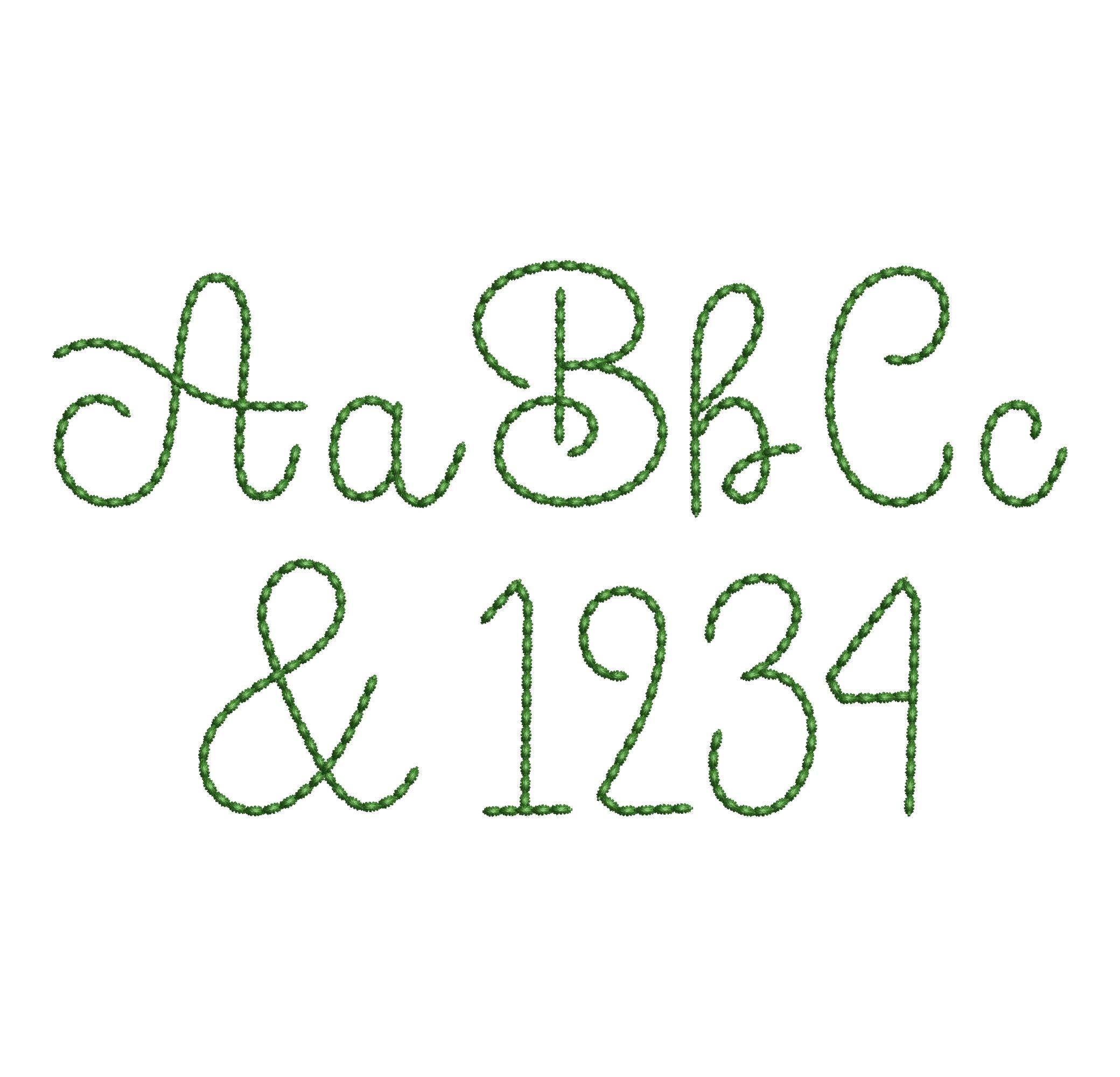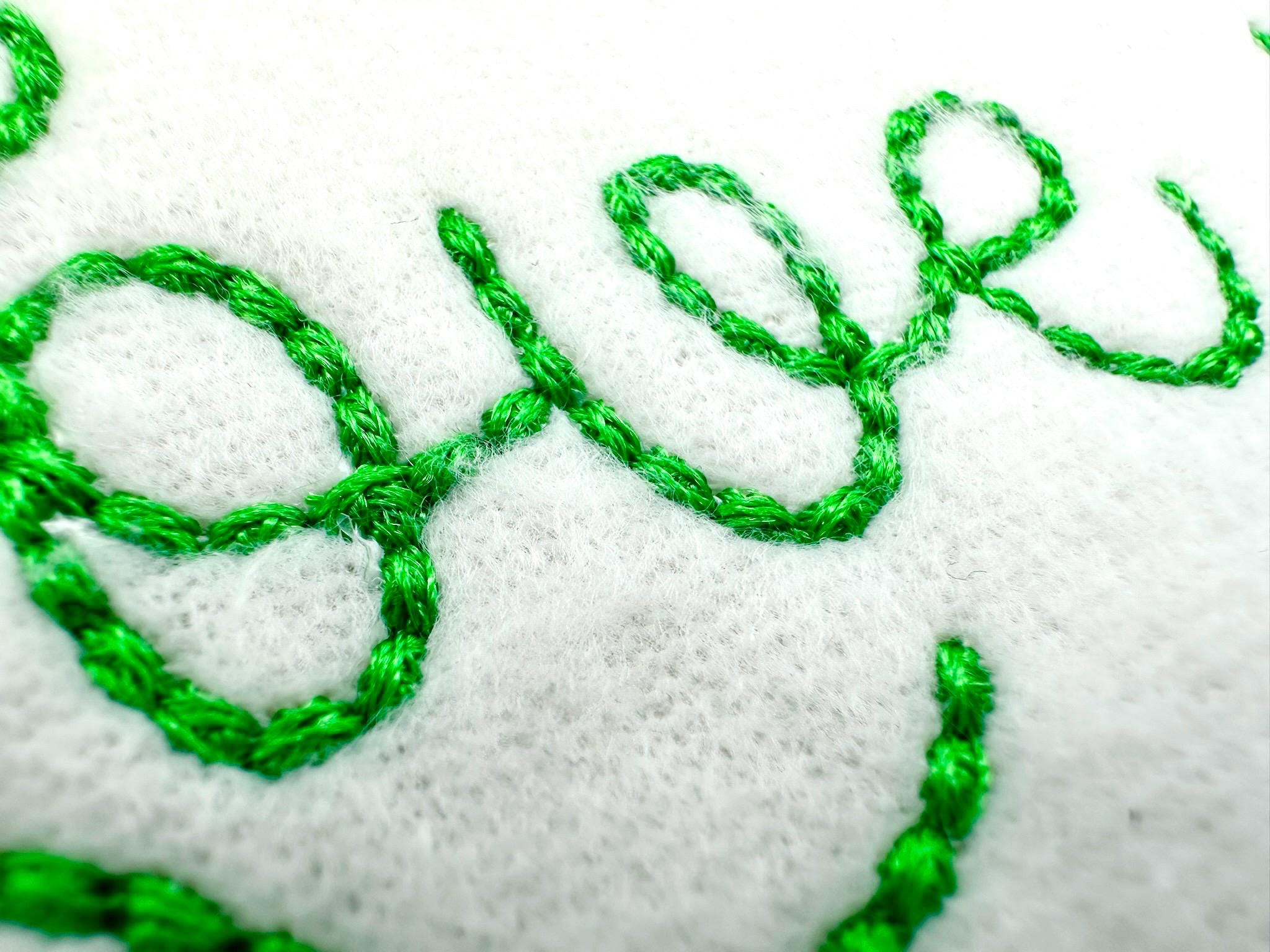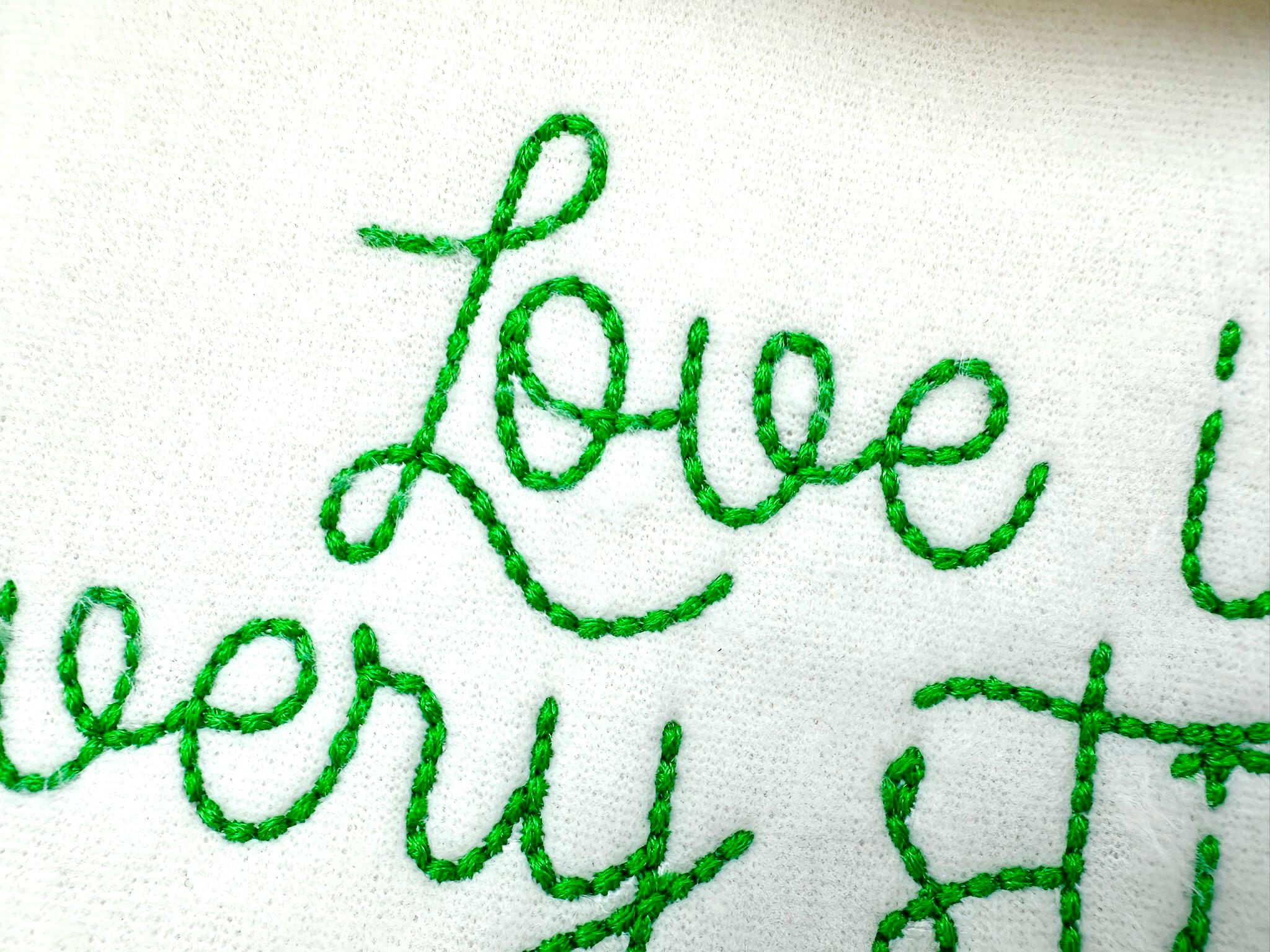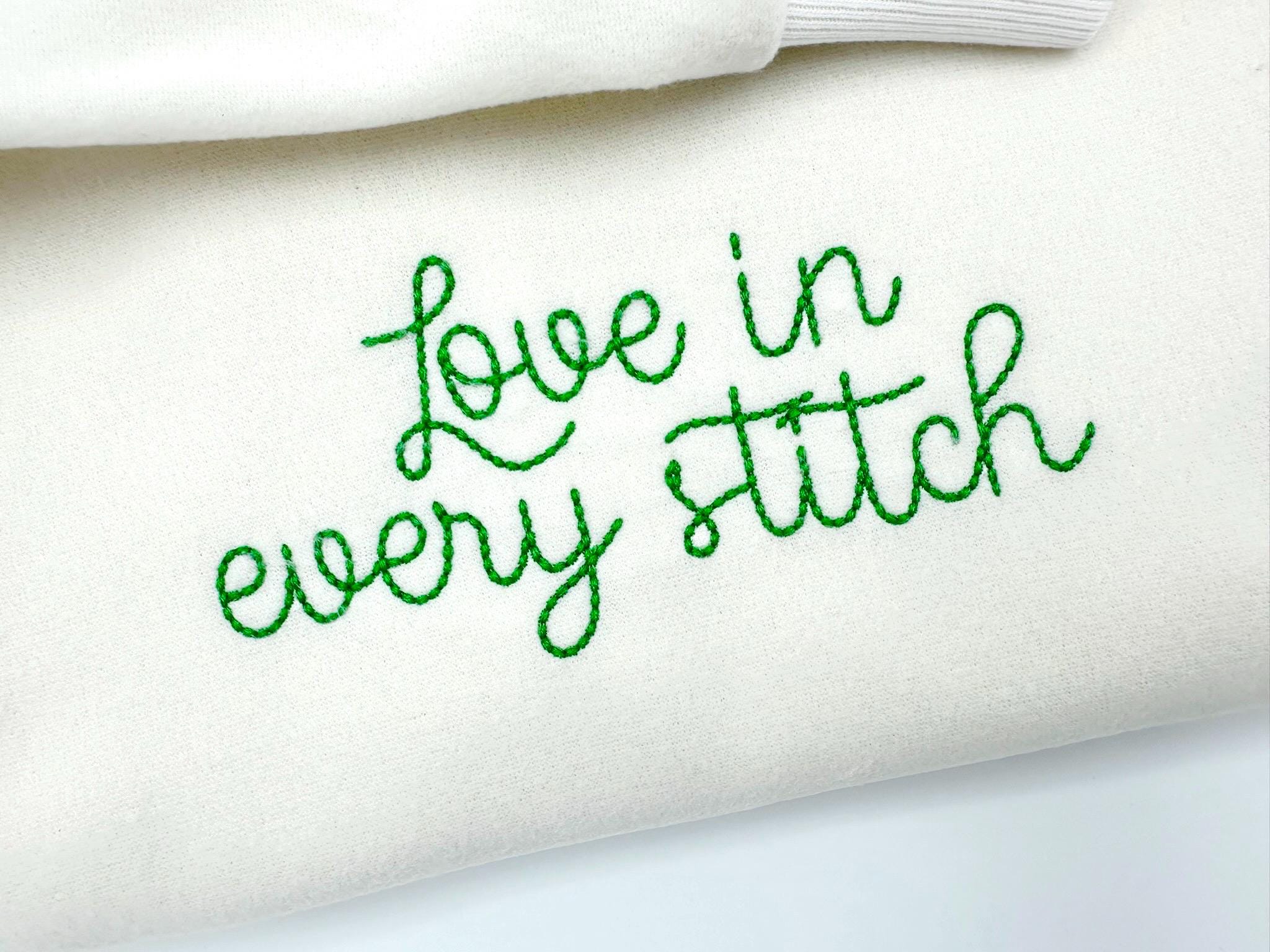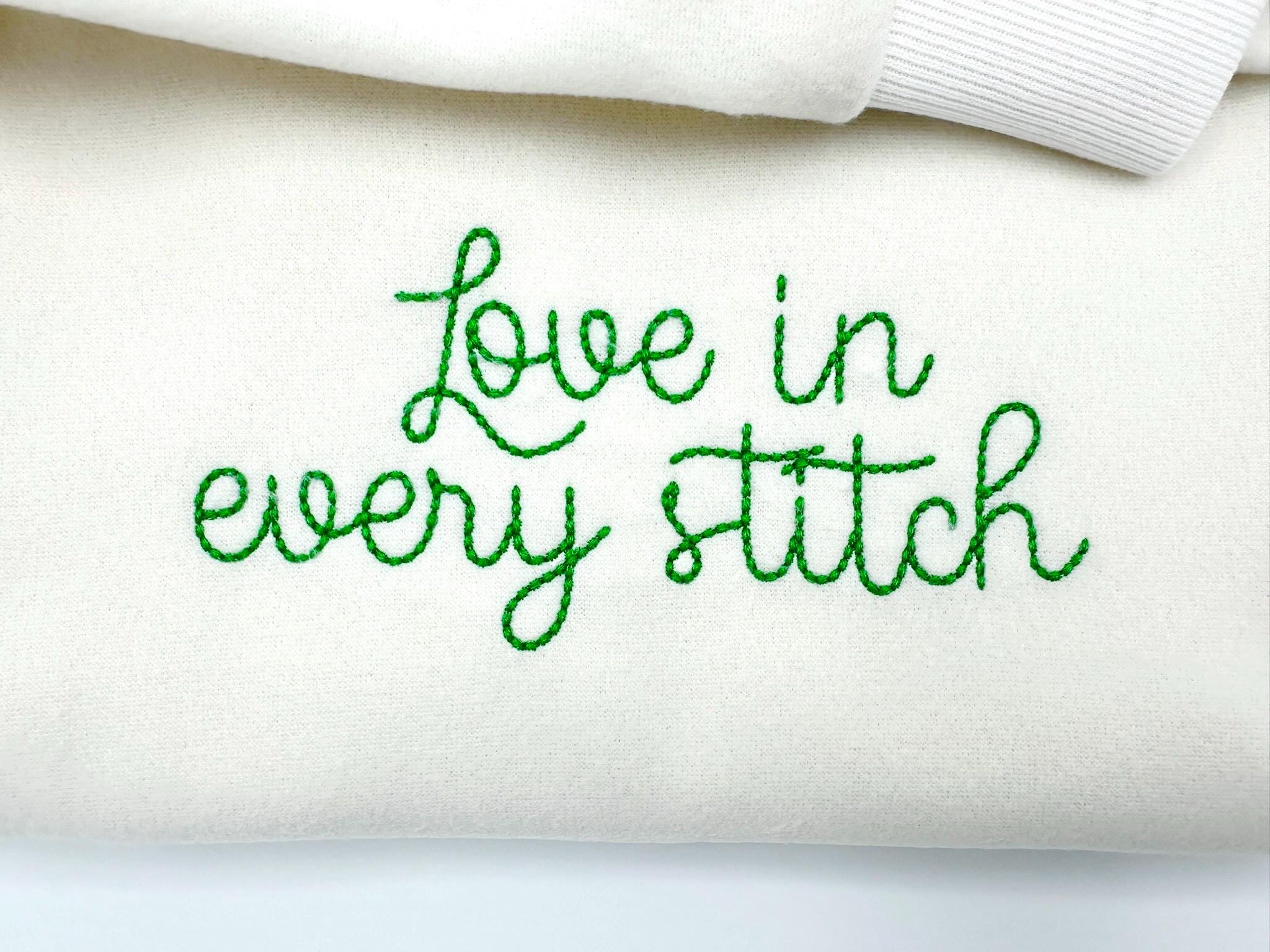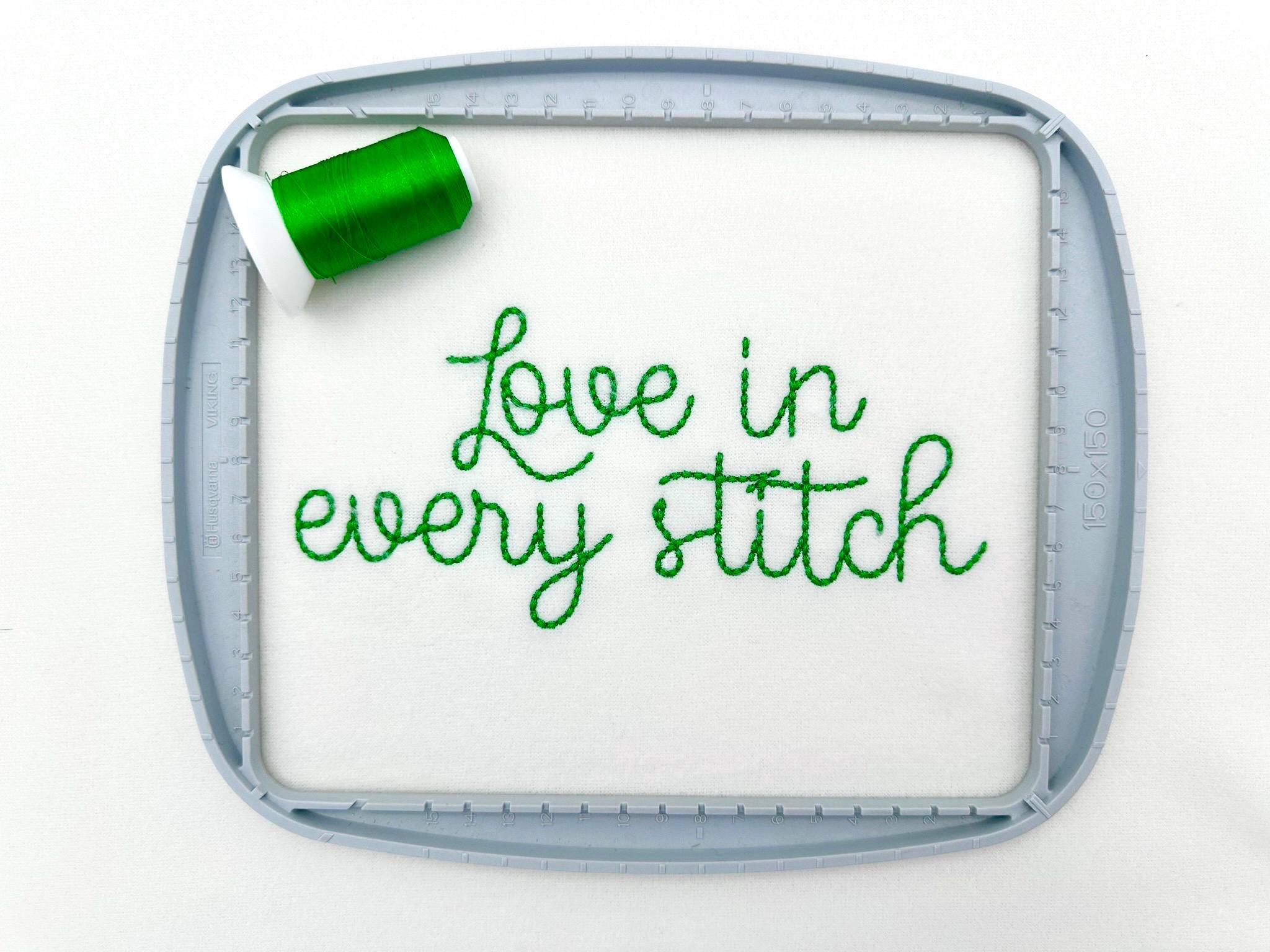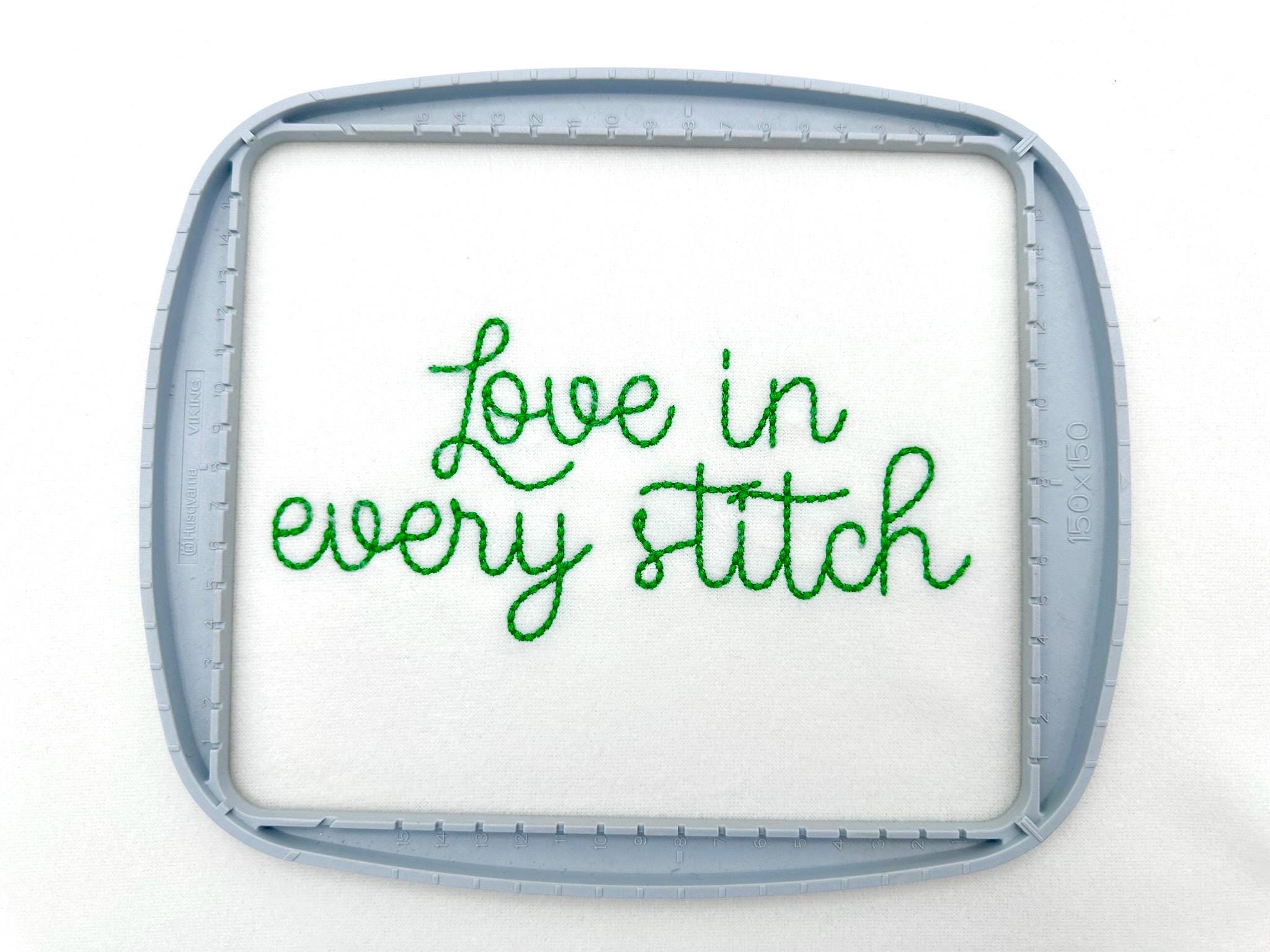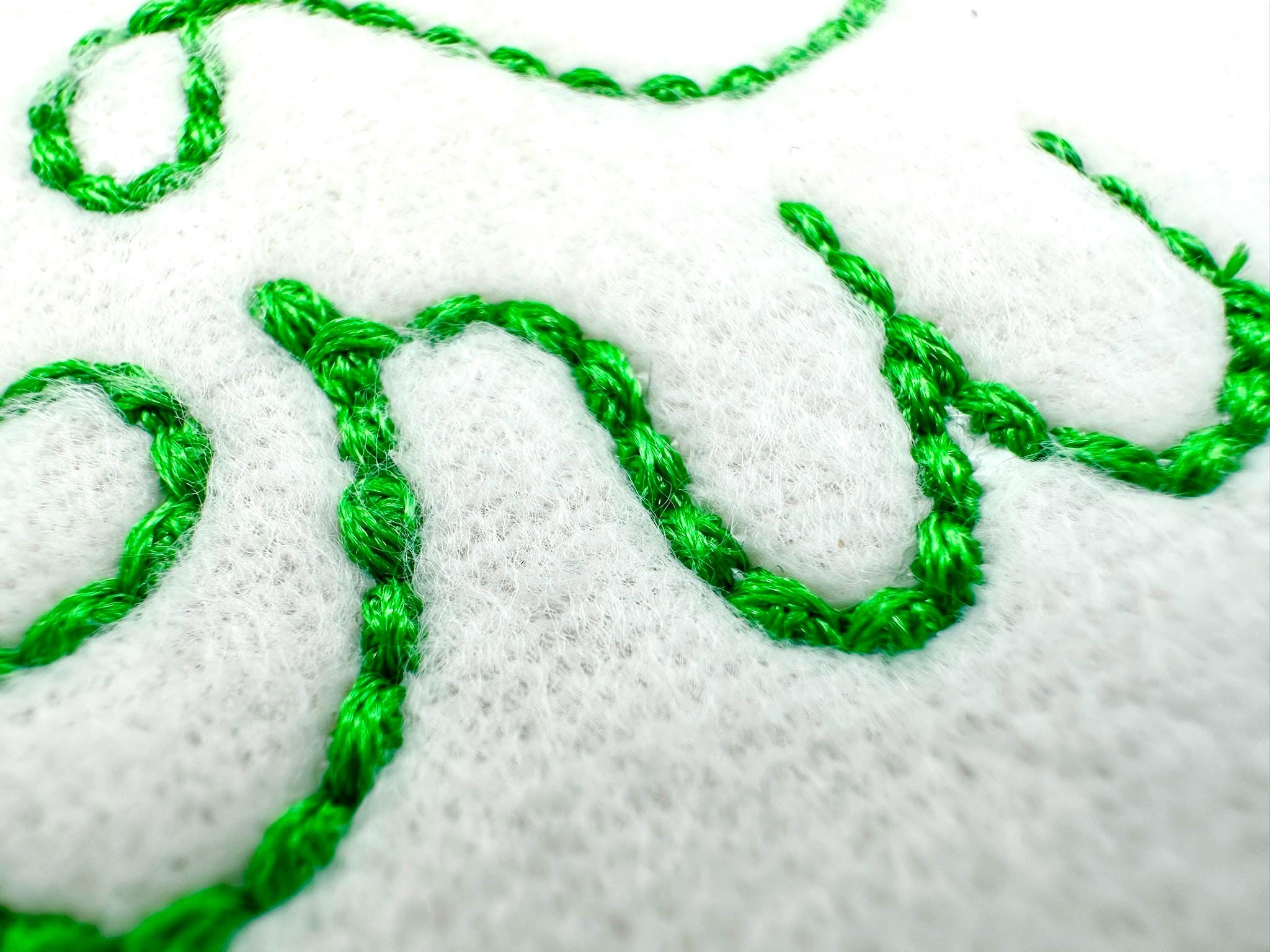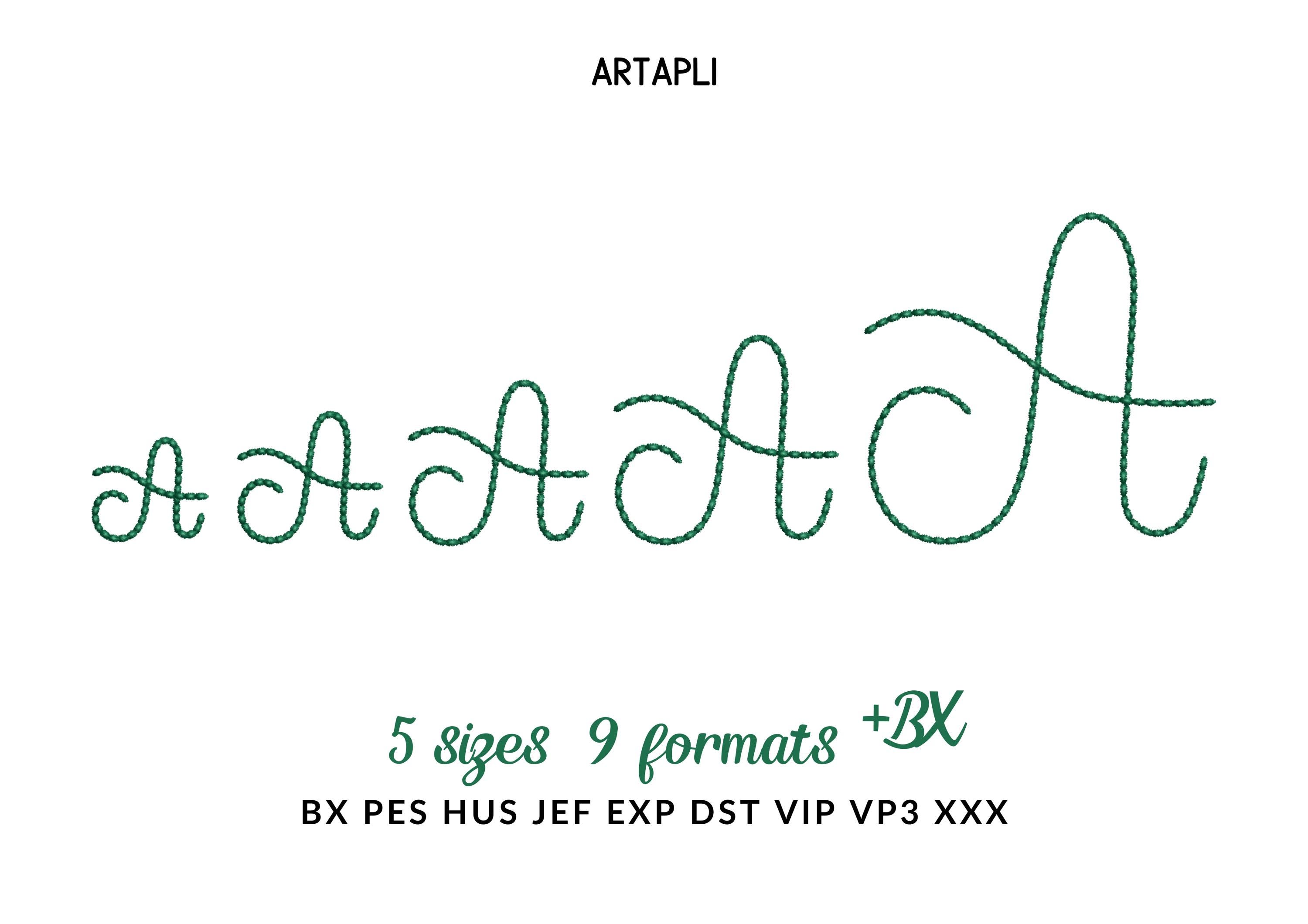
Hand stitch effect FONT Mocha machine embroidery designs handwritten script Alphabet Monogram assorted sizes 1.3 up to 3.3 inch kids name BX
Entire alphabet: uppercase and lowercase letters, numbers, and punctuation as shown in the images.